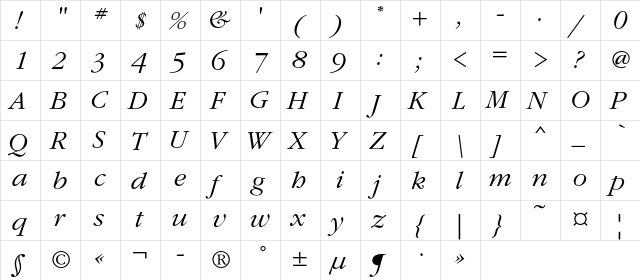
GaramondC Italic
Design Context for GaramondC Typeface
GaramondC offers clean, dependable letterforms without strong stylistic allegiance, making it a practical choice for designers who need flexibility. The dynamic lean of this cut emphasises speed and emphasis in any layout.
Pro Tip: Use GaramondC for emphasis, pull quotes, and subheadings where its slanted energy can add rhythm to the layout.